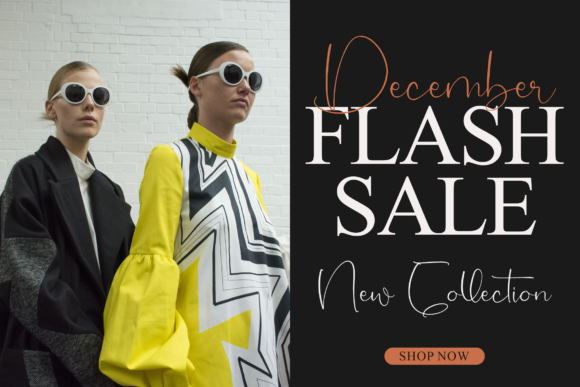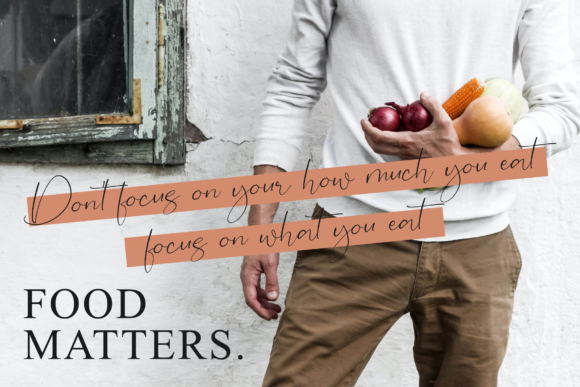
Etrashyle Font
db-ku.com - Script & Handwritten -- Etrashyle is a stylish and delicate script font. It has a clean, thin, and smooth vibe and it will be a hit for any design that you want to add it to.